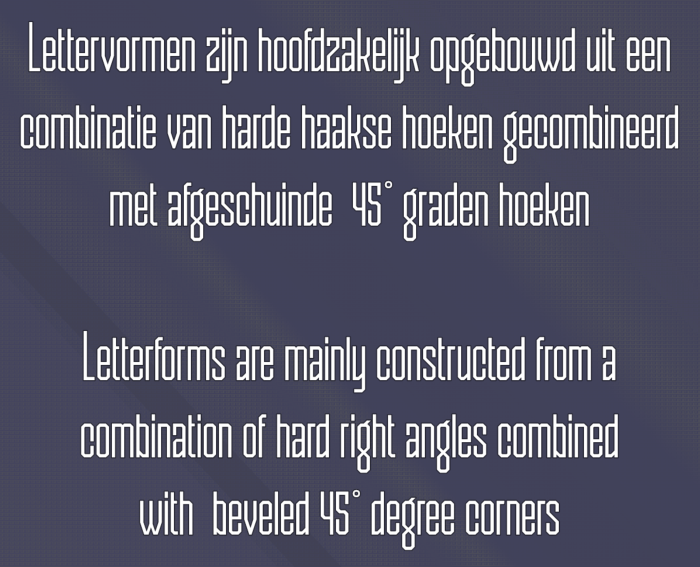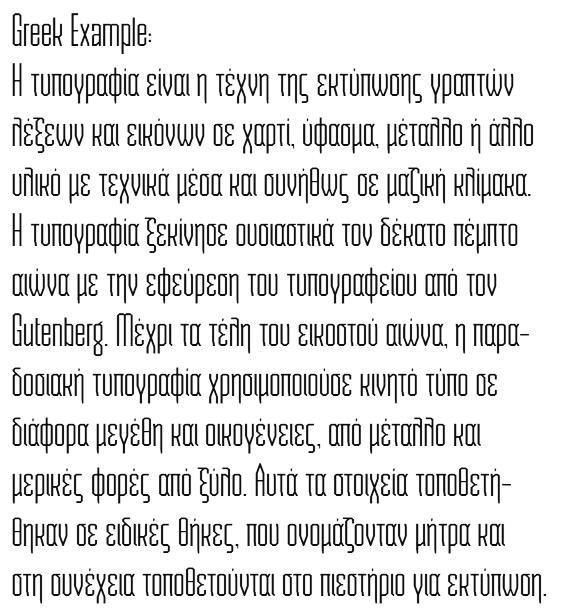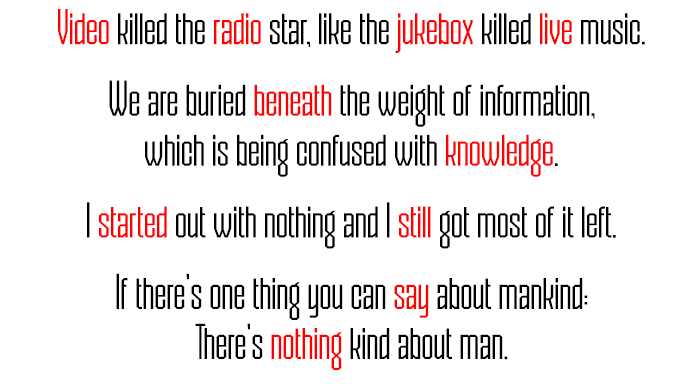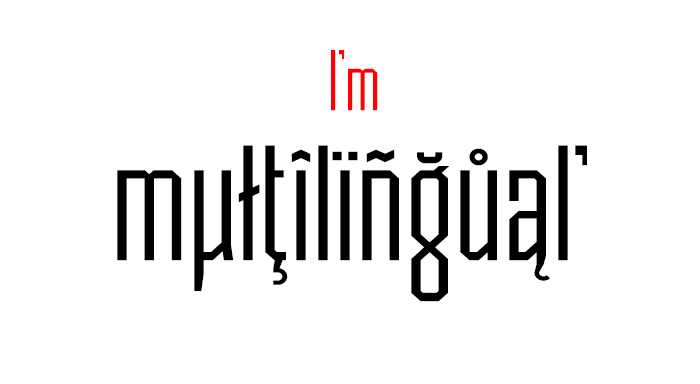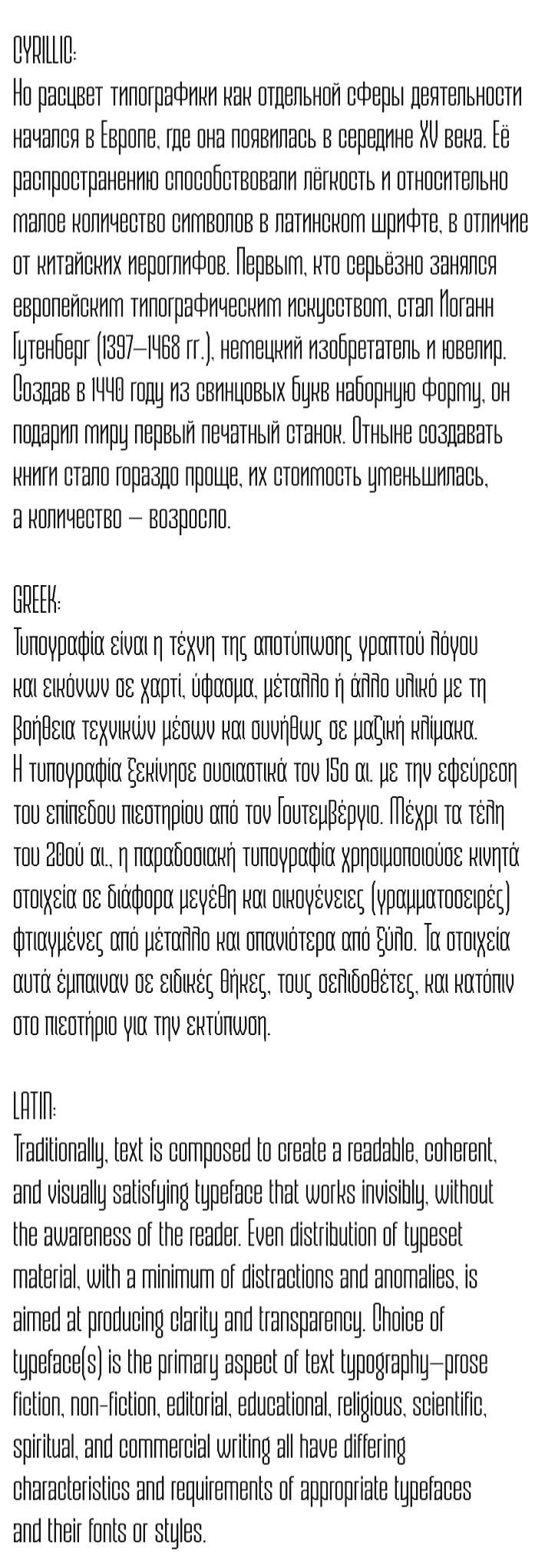
• STF_DAMAGE INC. - Tech inspired condensed geometric sans.
It’s a modern rigid square-based geometric sans that was designed to work especially well in body style text. It was carefuly crafted to be a spacious but continuous fill.
The squarish geometry provides a slight mechanical looking, yet clean and very open basic design.
Each glyph was further constructed with more than enough negative space (white space), making sure any text will look brightly lit and feels well ventilated at all times. This is especially welcoming when having to read large chunks of body text.
The uppercase character set was constructed somewhat of a fraction disproportionally taller compared to the  more naturaly proportioned lowercase character set. This to make any line of text that is set in 'all-caps' to bring the impression of being condensed.
This effect is then exaggerated even more by slightly pulling back on the extent of any ascenders and descenders on the lowercase characters.
I am pretty pleased with the result, it's overall look is fairly consistent and legible. The condensed effect allows squeezing a good decent amount of horizontal text per one single line of type.
The only thing kind of dissapointing to me was it's smallest possible point size in digital display use. It doesn't do well bellow 20px (14.5pt) in digital format.
20px is the absolute smallest size for everything to look crisp and alligned with the pixel raster, going bellow this point and the font starts to become blurry and distorted.
I wonder what any of u type wizards think so far...
[BIG UPDATE]
■ Extended language support up to 64 languages (+ partial Greek = WIP)
■ Added kerning
The basic concept for that last sample image was pretty much copied from Frodo.. I''m pretty sure he doesn't mind !
@Sed4tives: It was not my idea. You may see very similar demo pics on MyFonts.com and elsewhere. It is an effective way to communicate Latin Extended-A support. Well done.
Very like! Thinking about adding Cyrillic to this font? The wider Ф, which is in Cyrillic, is already done correctly and I think it should also be used in Greek.
@Dmitriy: Thanks mate. Yes, Cyrillic is also planned. This will be up next after I completed the Greek set.
For capital greek letters with tonos, I put the tonos to the left of the letter with the top at the height of the letter.
[UPDATE] - This update was dedicated to "Dmitriy Sychiov (Sychoff)" ?
• support for 9 new languages added (including Greek and Cyrillic)
73 languages supported in total
• many changes made to numerous glyphs, diagonals and so on, making a much more improved font.
Well done. Two extra bricks at the Å.
Oh, thanks, fixed ?
[Update] Now support for 103 languages.
Good Cyrillic. But the letter к does not have to bend the upper part, and ж usually does not differ so much from it.
also г looks very strange, usually it does not bend as much as б. I'm also not sure that a descender is needed for letters based on г in extended Cyrillic